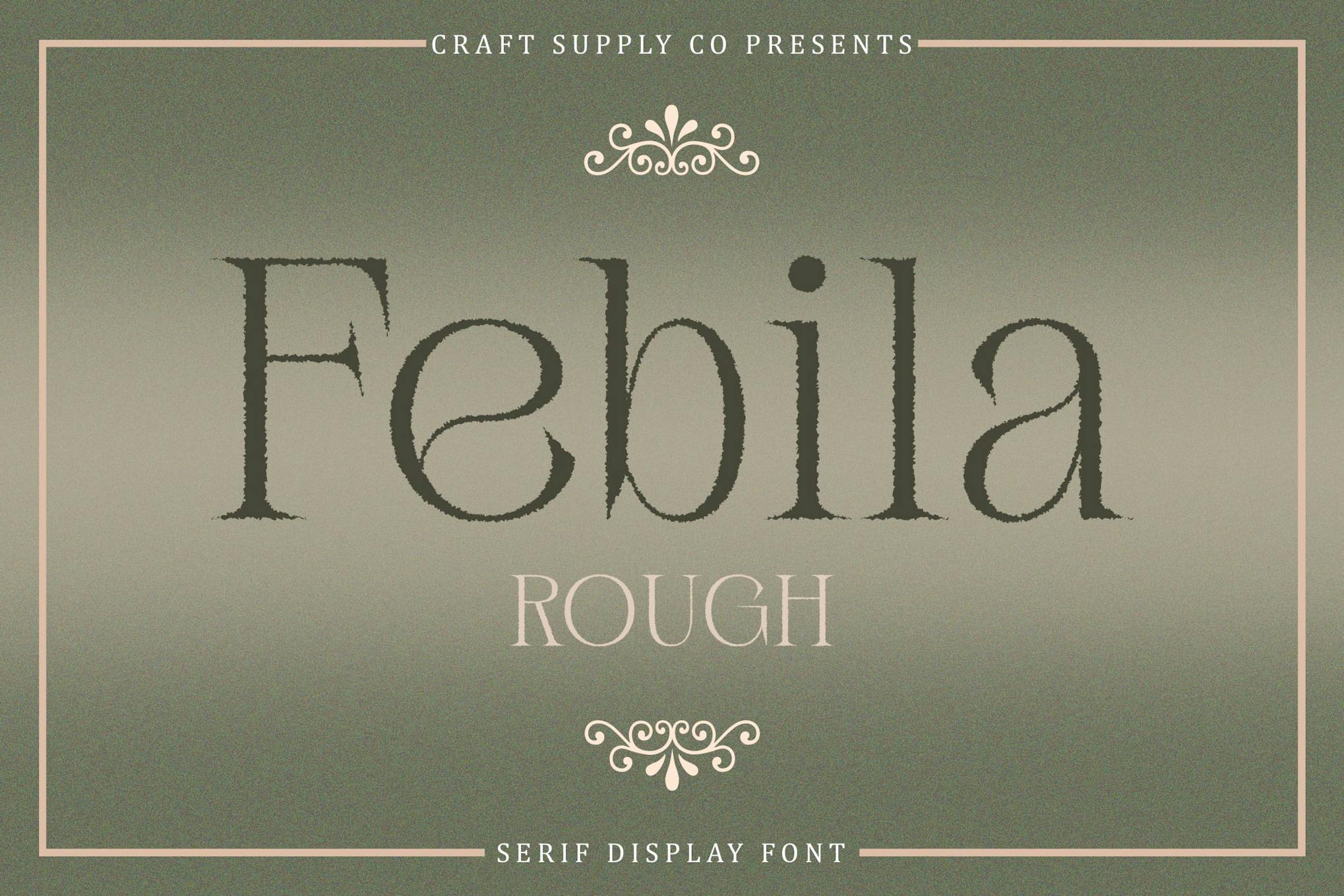
Febila Rough Font
The Febila Rough Font is perfect for vintage branding, distressed packaging design, retro band posters, weathered signage, craft product labels, rustic restaurant menus, grunge magazine headers, and artisanal business logos.
What makes Febila Rough Font so exciting is its authentic handcrafted texture that brings warmth and personality to every design project. This remarkable typeface captures the essence of hand-painted signs and weathered typography, featuring naturally distressed edges and organic imperfections that tell compelling visual stories. The font's carefully crafted rough texture creates immediate visual interest while maintaining excellent legibility across all applications. Its genuine worn appearance instantly adds character and depth to modern designs, making it perfect for brands that want to convey authenticity, craftsmanship, and timeless appeal through their typography choices.
The Febila Rough Font family includes comprehensive variations to support diverse creative requirements. The collection typically features multiple weights from Light to Bold, each maintaining the distinctive rough texture that defines the typeface's character. Many versions include italic variations, alternative characters with enhanced distressing effects, decorative ligatures, and extended character sets supporting international languages for global design projects and multilingual branding applications.
The font's remarkable versatility shines in both print and digital applications, from website headers to product packaging. Its carefully balanced distressed texture maintains readability at various sizes while preserving the distinctive rough character that makes it so visually appealing. The thoughtful design ensures consistent performance whether used for large display headlines or smaller supporting text elements.
Creative professionals across industries trust this distinctive rough font for projects requiring genuine character and vintage appeal. Whether developing brand identities for artisanal businesses, creating marketing materials for craft industries, or designing promotional content for creative agencies, this font delivers the perfect combination of authenticity and professional quality that elevates any creative project to new heights.